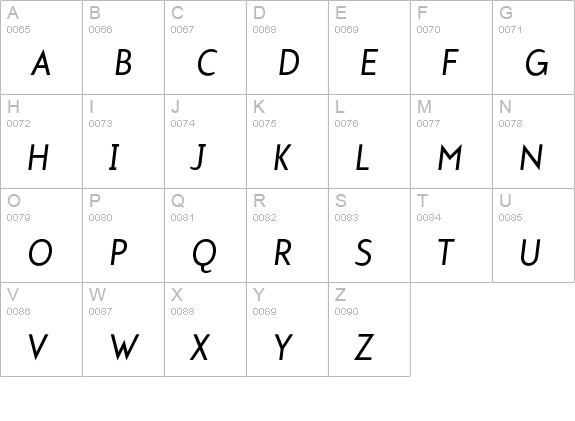
Mercury Italic Font Details
Mercury Italic is a distinctive, italic variant in the Mercury typeface family \xE2\x80\x94 well suited to design and typography projects.